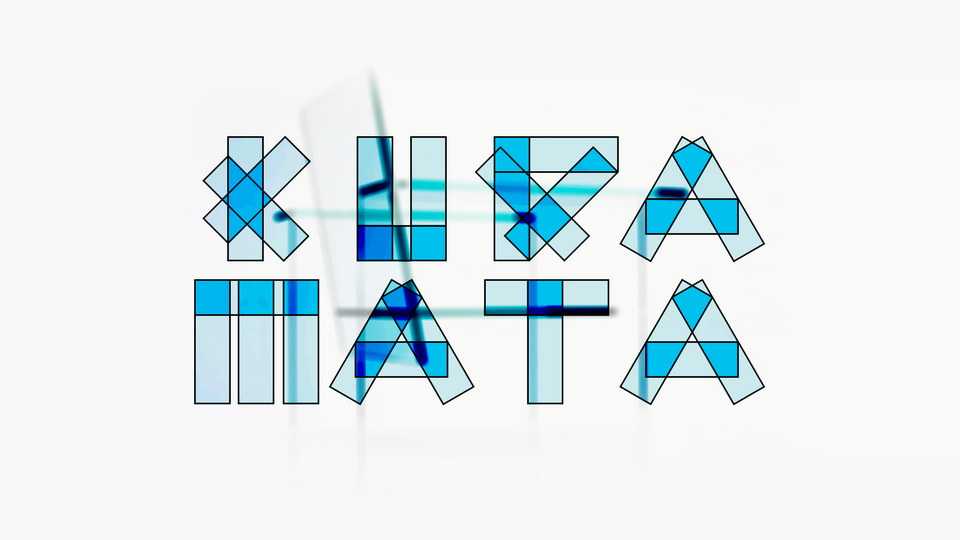
Download Kuramata font, a display font family inspired by Shiro Kuramata’s glass chair. Kuramata’s main advantage is his variations, it can be used as a modern or vintage magazine font.
Designer: Thunder Studio